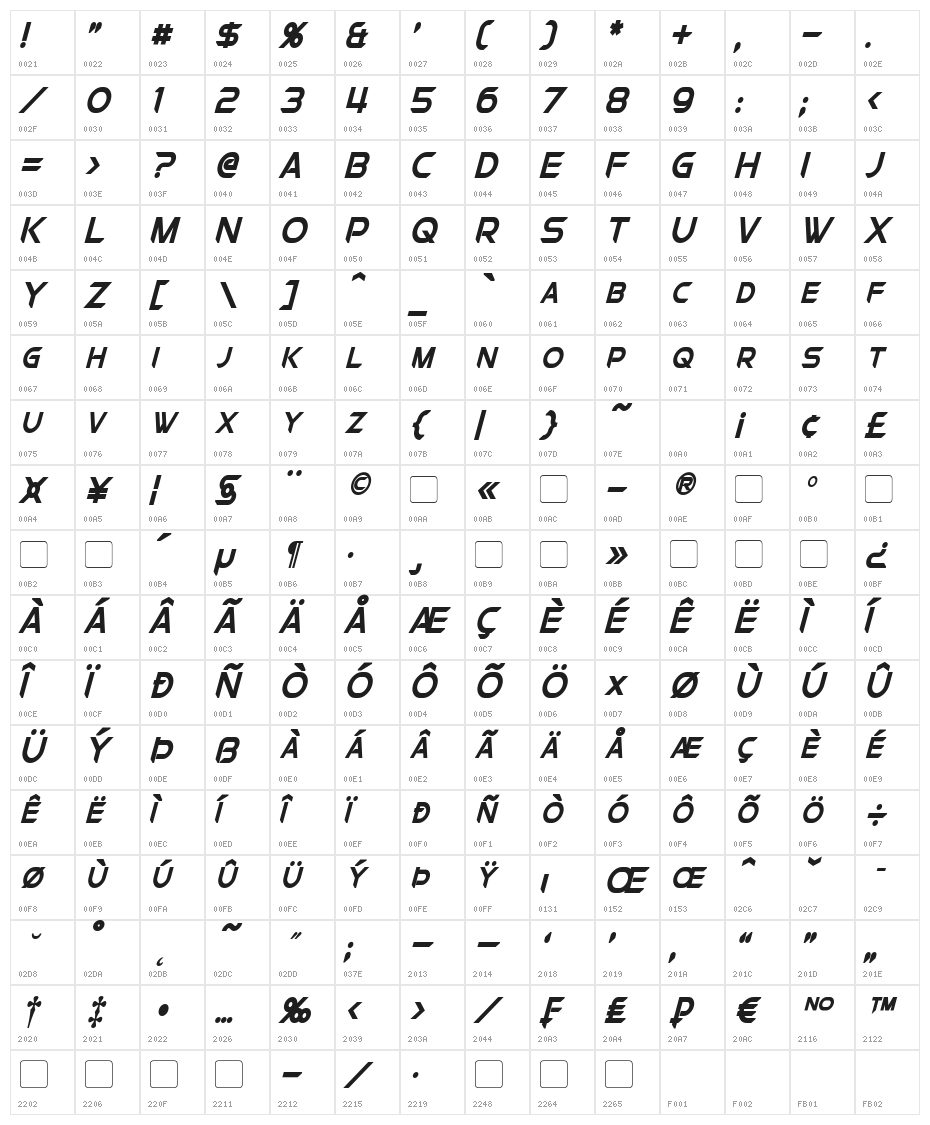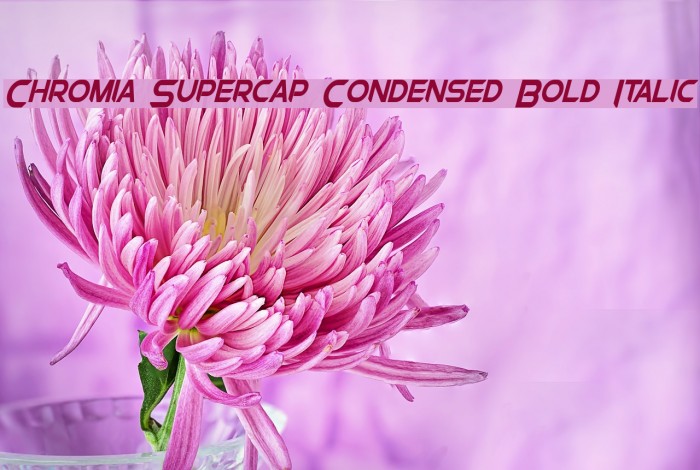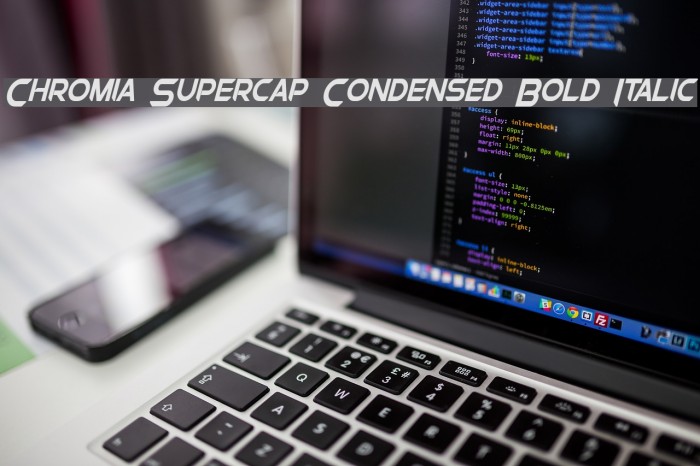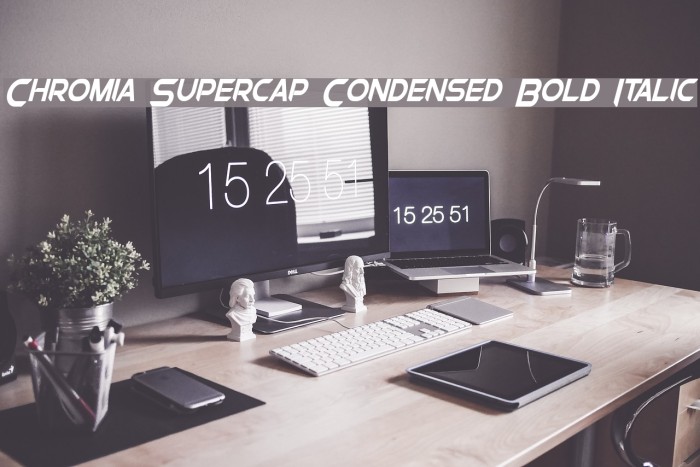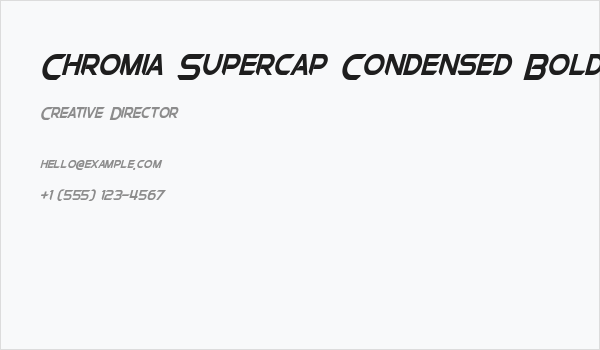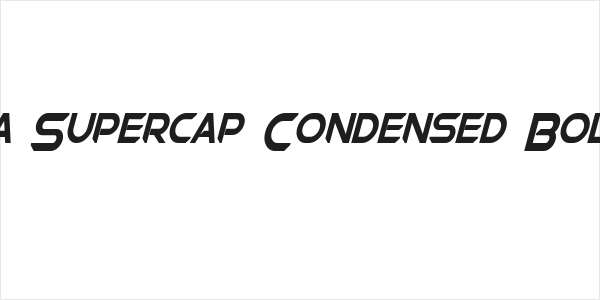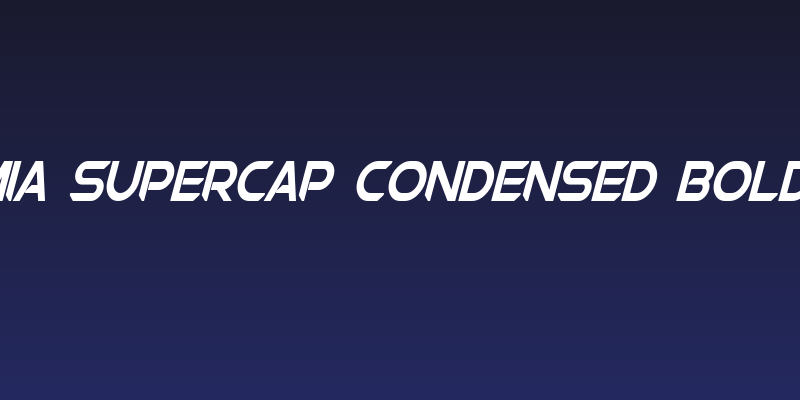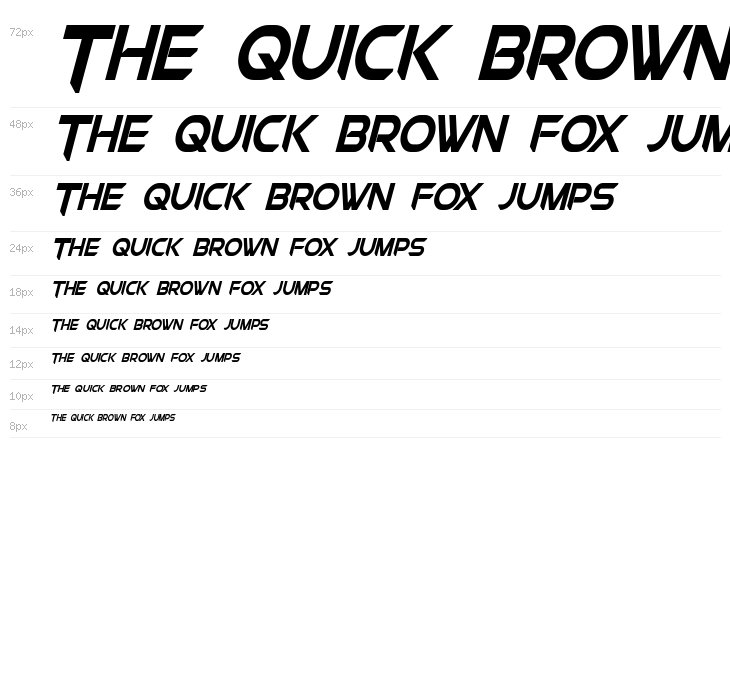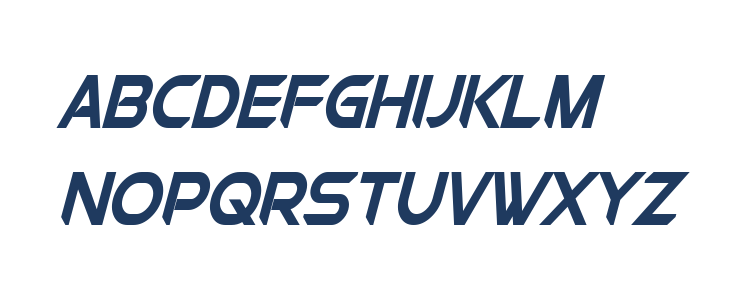
Chromia Supercap Condensed Bold Italic Font
Chromia Supercap Condensed Bold Italic Description
This font features a dynamic and modern design with a condensed structure, emphasizing bold and italic characteristics. The letters are sharply angled, giving a sense of movement and speed. The uppercase and lowercase letters maintain a consistent style, with clean lines and a futuristic aesthetic. The numerals and special characters are designed to match the overall sleek and contemporary look, making it suitable for projects that require a strong visual impact.